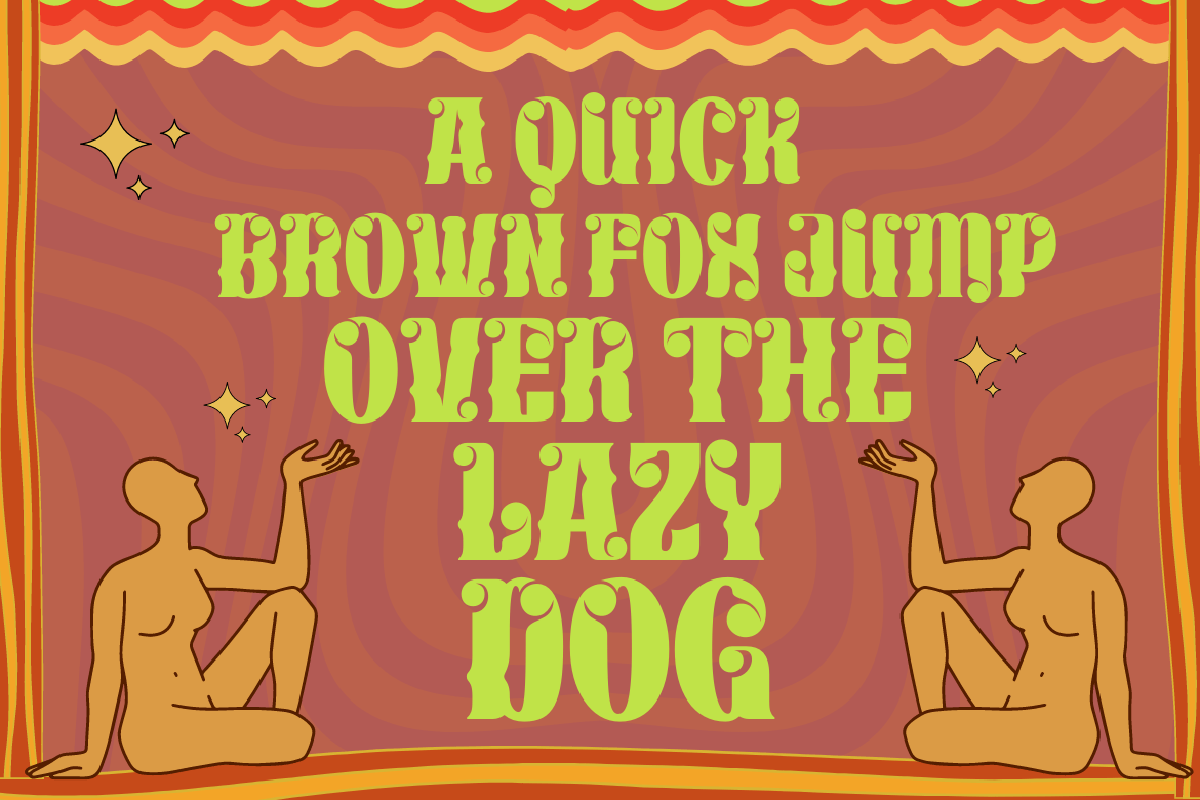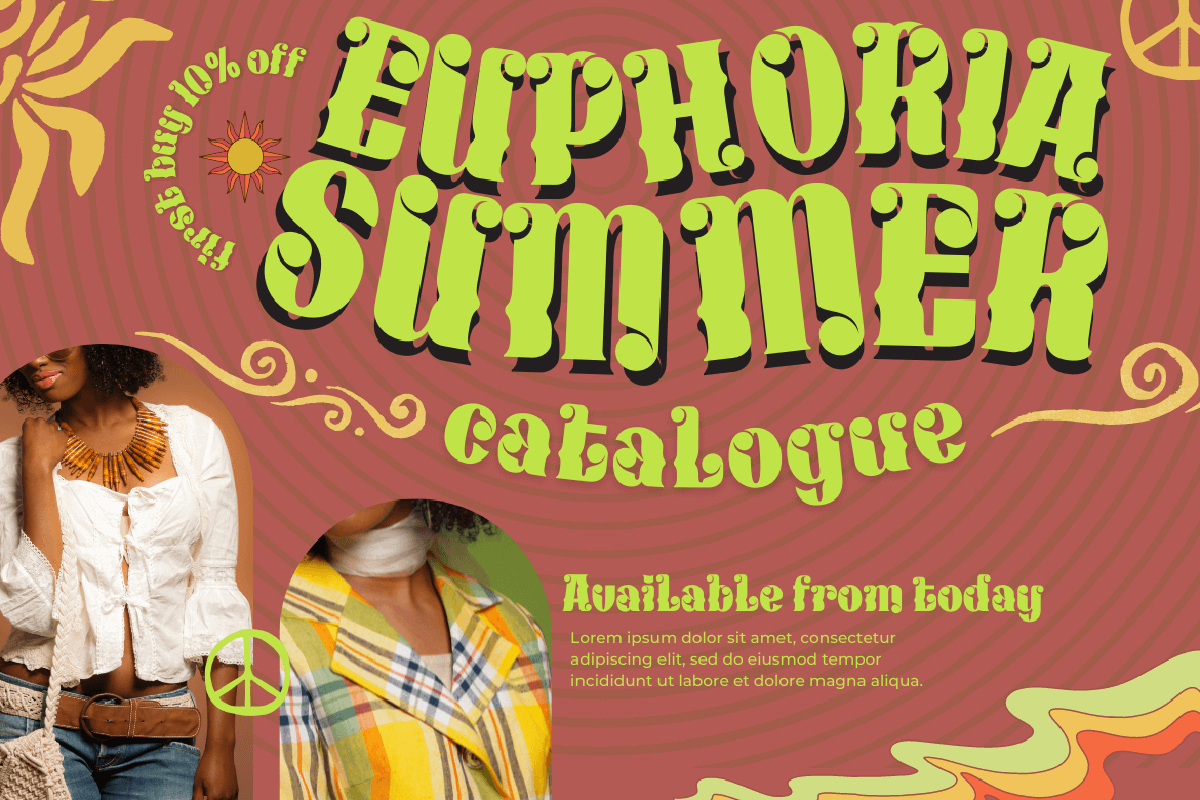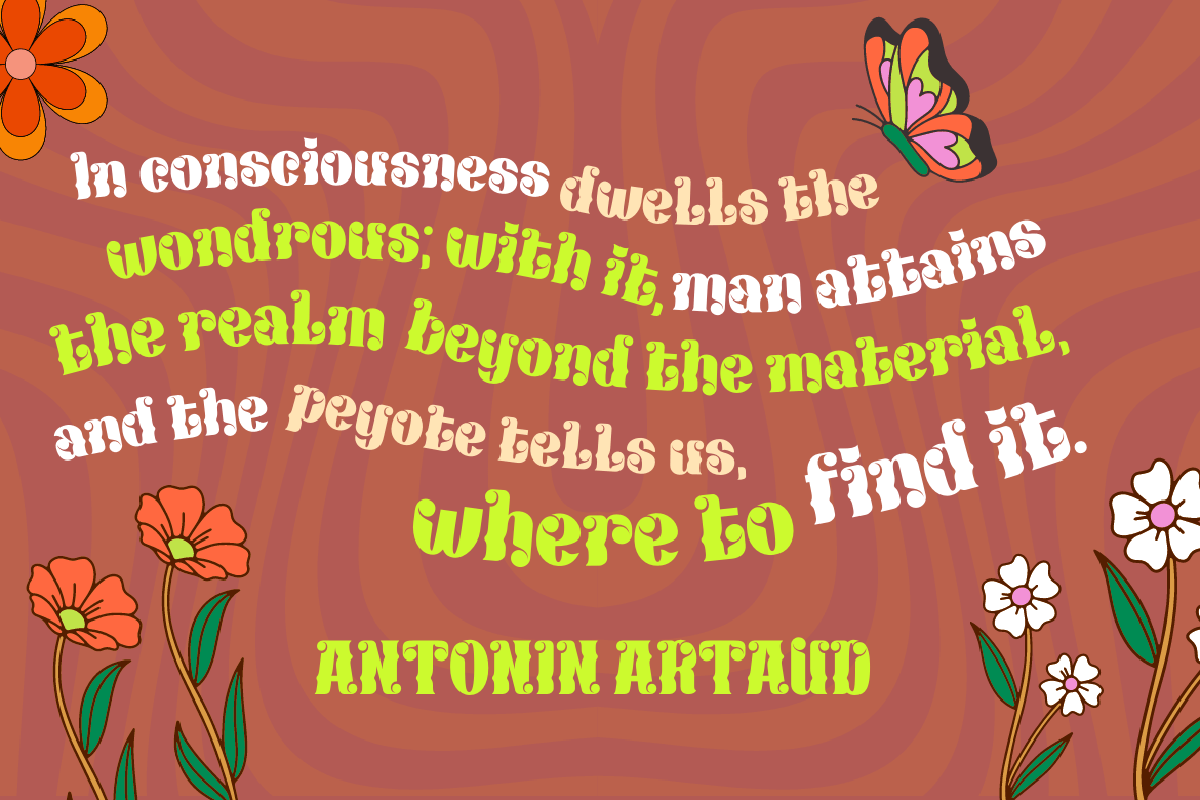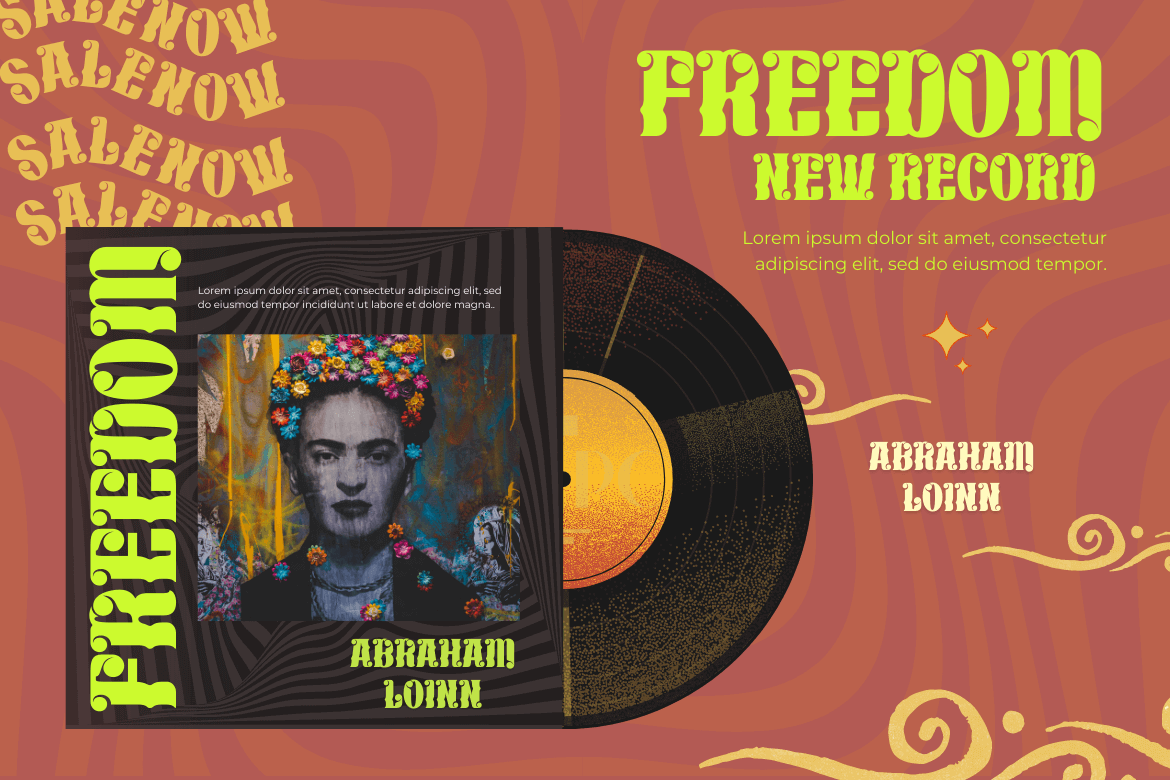
Kexinu Free Font
Introducing Kexinu Free Font, a mesmerizing display typeface inspired by the psychedelic era. With its stylish and bold character, this font is the perfect choice to infuse a touch of funk into your projects. Embrace the retro vibe of Kexinu, which boasts a bold and playful demeanor that complements any design endeavor with utmost brilliance. Let the captivating charm of this font elevate your creative projects to new levels of vibrancy and allure. Get ready to unleash the psychedelic spirit of Kexinu and add a groovy twist to your designs. This free typeface was designed by a talented Twin Letter. If you like it don’t forget to check out the full version.